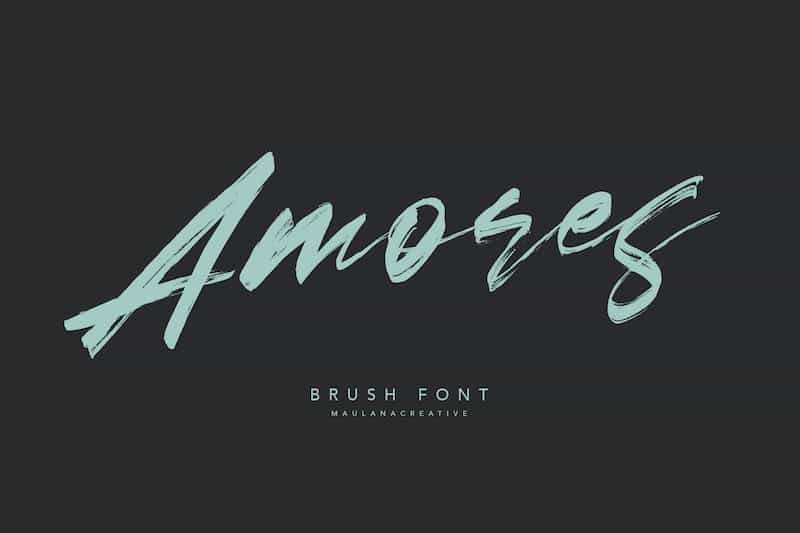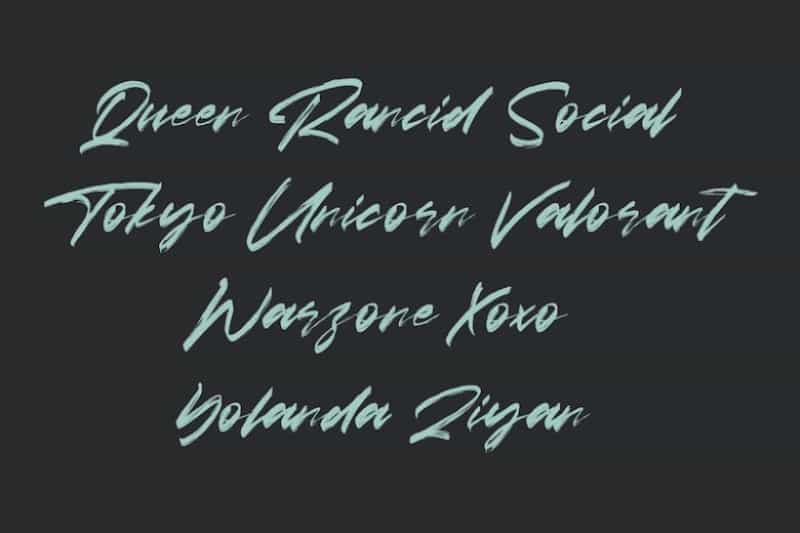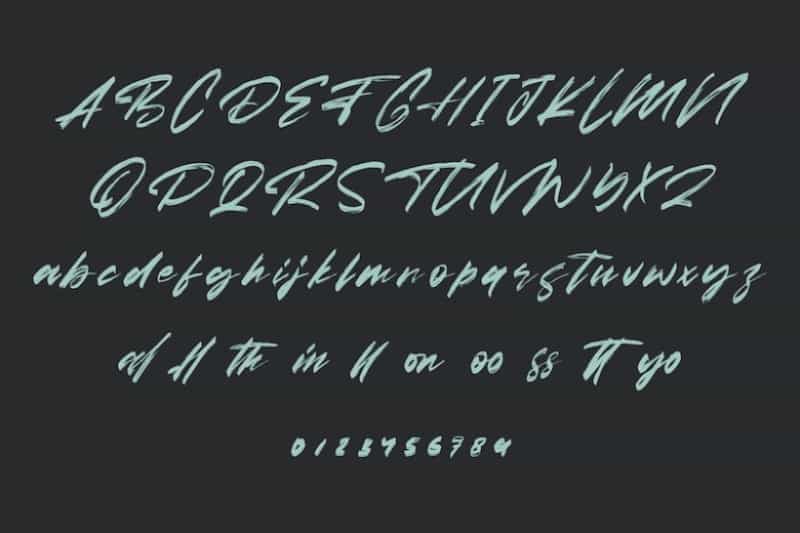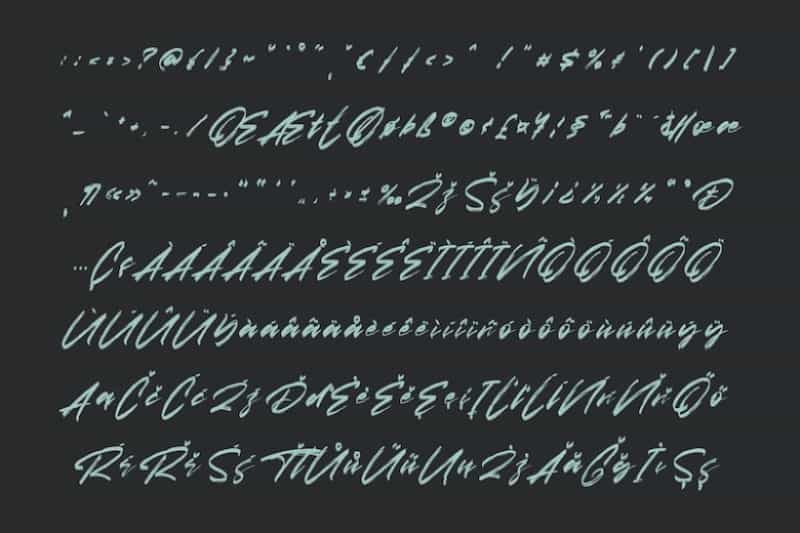
Amores is an expressive hand-drawn font with an impressive brush style created and distributed by Maulana Creative. This beautiful script can add sophistication and modernity to your content! This font is ideal for logos, branding book covers, T-shirt designs, advertisements, social media posts packaging, product designs, labels and all other projects.